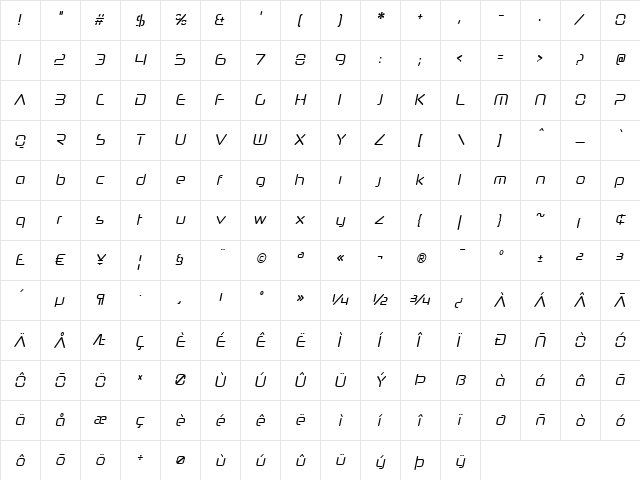
Neuropol Nova Cnd Italic
Italic ·  Ray Larabie ·
DesignerRay Larabie
Design Context for Neuropol Nova Cnd Typeface
Neuropol Nova Cnd takes a measured approach to typography — its balanced proportions and neutral character make it a reliable workhorse for both digital and print work. Its italic angle brings a sense of urgency and motion to the letterforms.
Pro Tip: Use Neuropol Nova Cnd for emphasis, pull quotes, and subheadings where its slanted energy can add rhythm to the layout.